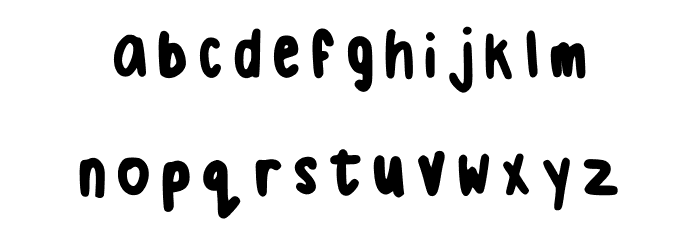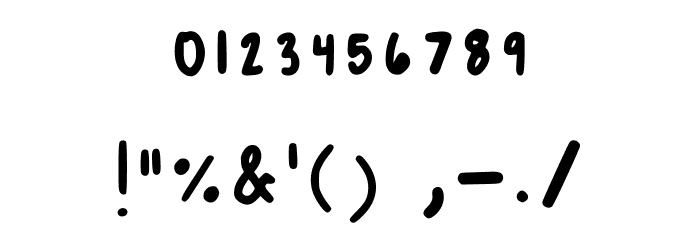
Little Big Alphabet Regular Font
This playful and whimsical font features rounded, slightly irregular characters that give it a hand-drawn appearance. The uppercase and lowercase letters are bold and friendly, with a casual, approachable style. The numbers and special characters maintain the same playful aesthetic, making the font versatile for various creative projects. Its unique charm is perfect for designs that require a personal touch, such as children's books, greeting cards, or playful branding. The font's overall style is modern yet retains a classic handwritten feel, making it suitable for both digital and print media.
A playful, hand-drawn font with rounded, irregular characters.
- Proposed Projects: Ideal for children's books, greeting cards, playful branding, and creative projects.
- Overall Style: Playful, Modern
- Use Case: Headlines, Logos, Creative projects